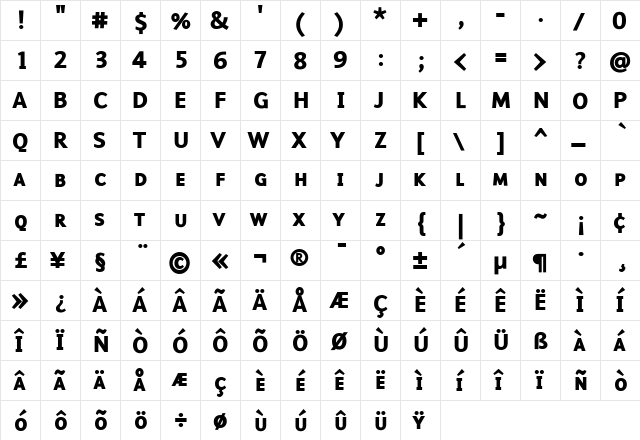
Malcom Bold
Design Context for Malcom Typeface
Malcom is a composed and adaptable typeface that performs quietly and consistently across a wide range of design contexts. The heavy weight commands attention and anchors typographic hierarchies.